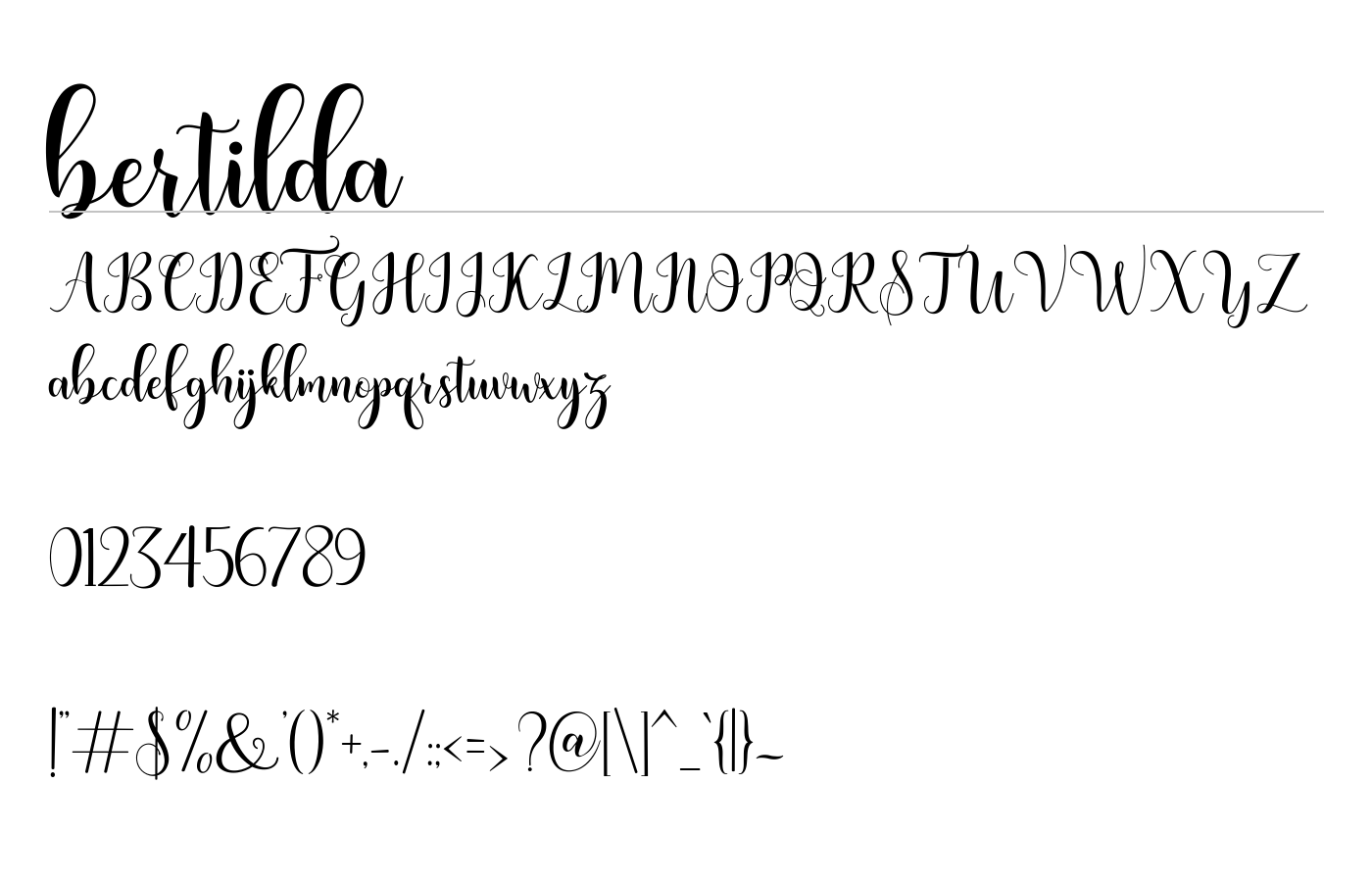
Bertilda is an elegant script font featuring a smooth, flowing style with moderate contrast and delicate, organic strokes. Its refined uppercase letters showcase graceful loops and curls, while the lowercase maintains legibility with charming, connected forms, making it ideal for feminine, romantic, or sophisticated branding and design projects. Perfect for invitations, logos, and stylish editorial work, Bertilda conveys warmth and elegance with a modern, handcrafted feel.
bertilda Font
About bertilda Font